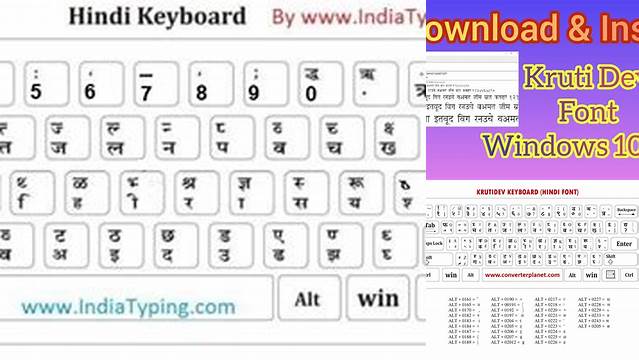
Kruti Dev 016 Font Free Download For Windows 10
Why Kruti Dev 016 is Still Relevant
Kruti Dev 016 remains a widely used font, particularly in India, for Hindi typing and various official purposes. Its legacy in the world of Hindi typography is substantial, making it a vital tool for numerous users. Understanding the reasons for its continued relevance can help you appreciate its significance and make an informed decision about using it. Let’s explore some key aspects of why Kruti Dev 016 is still a go-to choice for many.
Legacy and Historical Significance
Kruti Dev 016 isn't just a font; it's a piece of history in the digital world of Hindi typography. This font has been around for decades, and during that time, it has become a standard for many institutions and individuals. The longevity of Kruti Dev 016 speaks volumes about its reliability and usefulness. Its widespread adoption in the past means that countless documents and resources were created using this font. If you're dealing with older files or need to maintain consistency with historical records, Kruti Dev 016 is often the ideal choice. This historical significance adds to its value, especially in fields where accuracy and preservation are key.
The font's widespread use in government offices, legal documents, and educational materials has cemented its place in the digital landscape. Its familiar style ensures that documents created years ago can still be accessed and edited without formatting issues. This legacy is a major reason why many users continue to prefer Kruti Dev 016, ensuring continuity and ease of use in their work. The familiarity and trust associated with this font make it a staple for anyone dealing with Hindi text, reinforcing its importance in the current digital age.
Compatibility with Legacy Systems
One of the primary reasons Kruti Dev 016 remains essential is its compatibility with legacy systems. Many older software applications and operating systems were designed with Kruti Dev 016 in mind. This means that if you're working with older files or systems, using Kruti Dev 016 can prevent formatting issues and ensure that your text displays correctly. This compatibility is crucial for organizations that have extensive archives of documents created using this font. Switching to a newer font might lead to compatibility problems, requiring significant time and effort to convert old files.
By sticking with Kruti Dev 016, you can avoid these headaches and maintain seamless access to your historical data. Furthermore, many specialized applications used in government and legal sectors still rely on Kruti Dev 016 for Hindi typing. This reliance on the font underscores its importance in maintaining operational efficiency. The ability to seamlessly integrate with older systems is a major advantage, making Kruti Dev 016 a practical choice for users who need to work across different platforms and generations of software.
Ease of Use and Typing Conventions
For many Hindi typists, Kruti Dev 016 is synonymous with ease of use. The font follows a specific keyboard layout that has become ingrained in the muscle memory of countless users. This familiarity is a significant advantage, as typists can maintain their speed and accuracy without needing to learn a new layout. The intuitive nature of Kruti Dev 016’s typing conventions makes it a favorite among those who have been using it for years.
The straightforward layout allows users to focus on the content rather than struggling with complex key combinations. This ease of use is particularly important in environments where efficiency and accuracy are paramount, such as data entry and document creation. Moreover, the widespread availability of Kruti Dev 016 tutorials and resources makes it easier for new users to learn and adapt. The established typing conventions, combined with ample learning materials, ensure that Kruti Dev 016 remains accessible and practical for a broad range of users, from seasoned professionals to those just starting with Hindi typing.